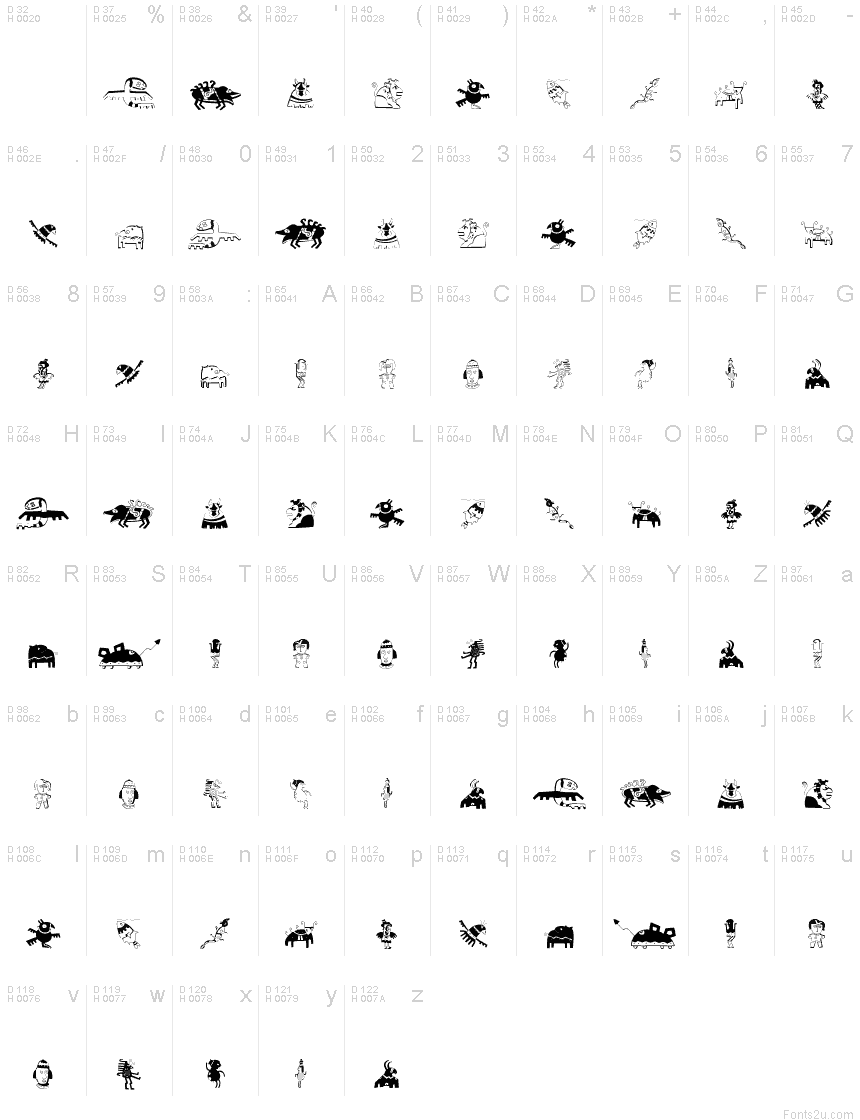
DueMillePix by M. Klein is a free ancient pictogram dingbat font built from stylized human and animal figures. Its angular outlines, patterned bodies, and uneven hand-drawn curves recall carved or painted symbols, with each figure functioning as a compact illustration.
Museum graphics can use the symbols as scene-setting ornaments, while game design can turn them into tokens or map markers. They also suit festival posters. Historical publishing draws on the same animal and figure motifs, treating each symbol as a small piece of narrative imagery.